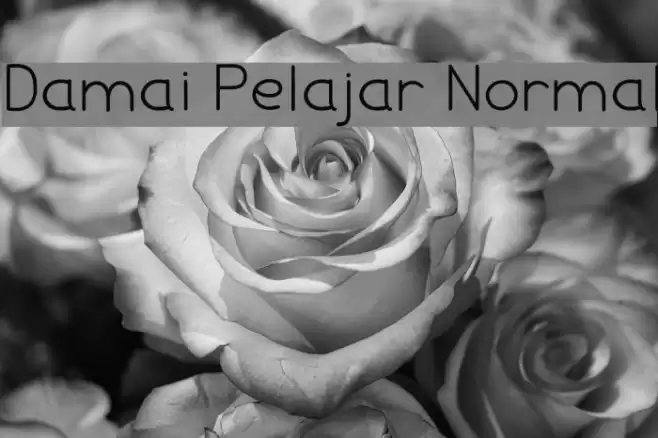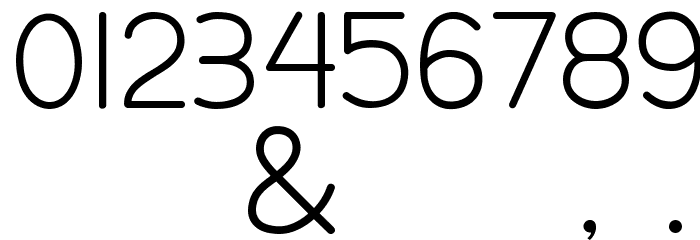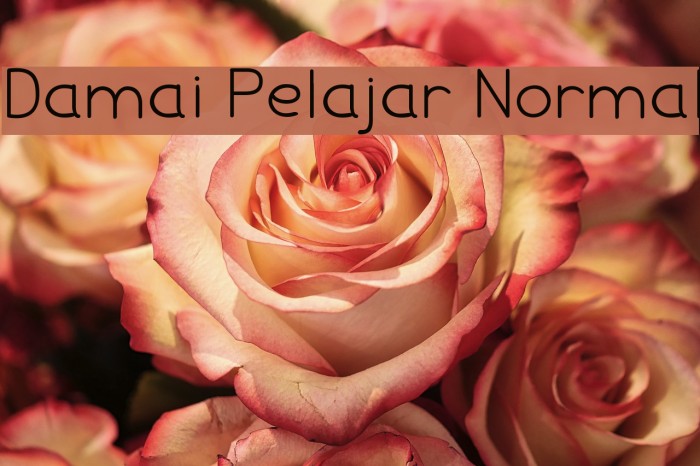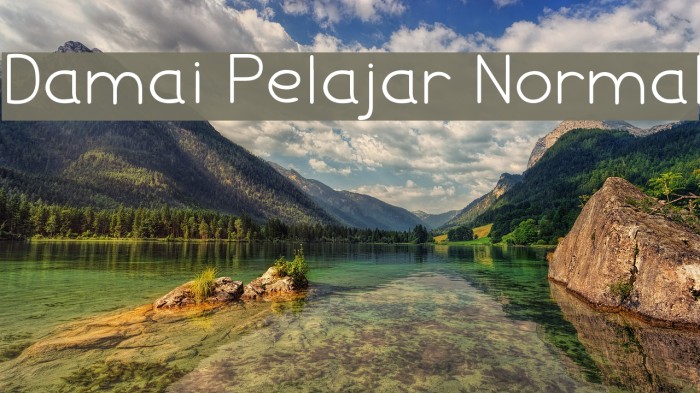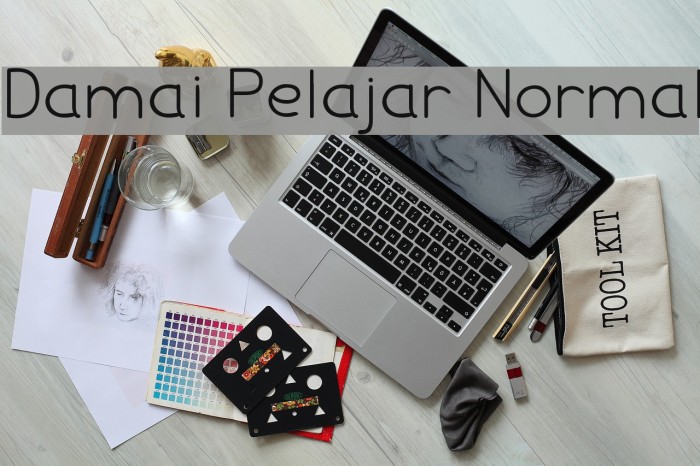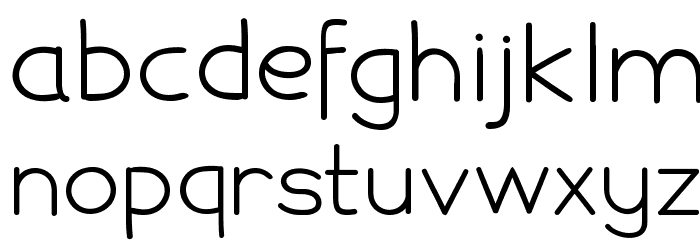
Damai Pelajar Normal Font
Damai Pelajar Normal Description
This font features a clean and modern sans-serif style with rounded edges, giving it a friendly and approachable appearance. The characters are evenly spaced, contributing to excellent readability. The uppercase letters are slightly taller than the lowercase, maintaining a consistent line weight throughout. The numerals are clear and distinct, matching the overall style of the alphabet. Special characters are well-integrated, maintaining the font's cohesive look. This font is versatile, suitable for both digital and print media.
A modern, rounded sans-serif font with excellent readability from Uncategorized fonts.
- Proposed Projects: Ideal for branding, web design, user interfaces, and educational materials.